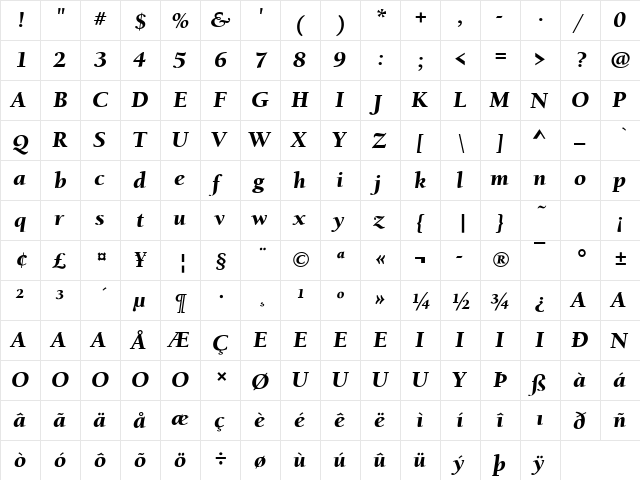
Berkeley Old Style ITC T Black Italic
Design Context for Berkeley Old Style ITC T Black Typeface
Berkeley Old Style ITC T Black offers clean, dependable letterforms without strong stylistic allegiance, making it a practical choice for designers who need flexibility. Its italic angle brings a sense of urgency and motion to the letterforms.
Pro Tip: Try Berkeley Old Style ITC T Black for annotation and caption copy alongside an upright companion — the contrast in angle creates a dynamic but ordered typographic system.